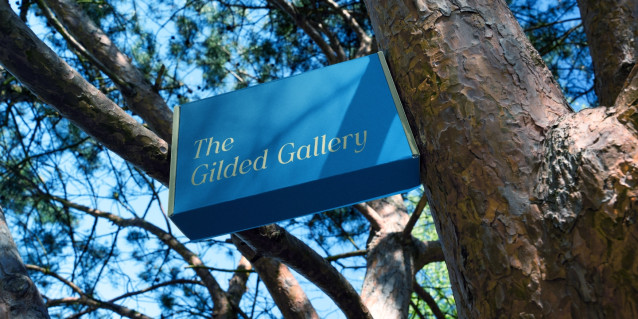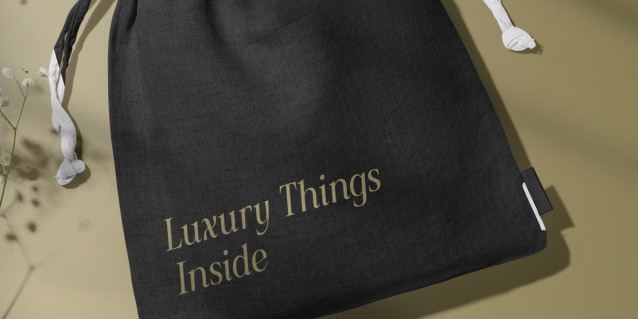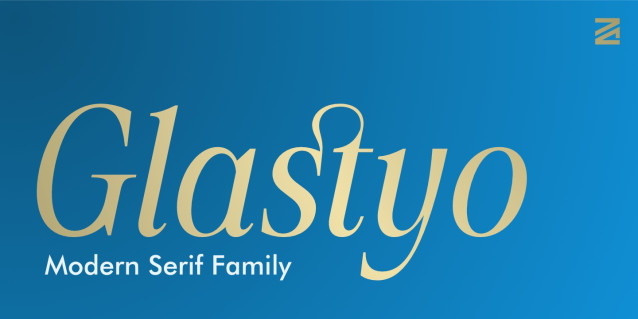
ZIA Glastyo Font
ZIA Glastyo is a contemporary, elegant modern serif typeface designed by ZIA Creative Studio. Combining smooth curves, distinctive high-contrast serifs, and expressive character alternates, it strikes a perfect balance between sleek modern aesthetics and timeless sophistication. Designed for editorial setups, high-fashion identities, and luxury brand layouts.
Perfect for:
• Modern Brand Identity & Logo Design
• Editorial Headlines & Magazine Layouts
• Luxury Packaging & Label Design
• Premium Website Headers & Digital Media
• Chic Advertising & Social Media Graphics
• Unique Ligatures & Discretionary Alternates